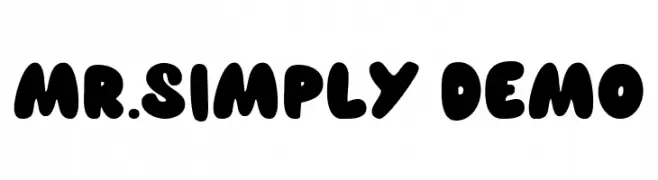
A playful, hand-drawn font with rounded, friendly characters.
An elegant, cursive font with flowing, ornate characters.
An elegant, cursive font with decorative flourishes and smooth curves.
A playful, bold font with rounded edges and a whimsical style.
A playful handwritten font with tall, narrow letters and a casual style.
An elegant script font with flowing, interconnected letters and decorative loops.
An elegant script font with intricate swirls and flowing lines, perfect for sophisticated designs.
An elegant script font with intricate swirls and a classic calligraphic style.
A modern, geometric sans-serif font with a clean and minimalist design.
A modern, geometric sans-serif font with rounded edges and consistent stroke width.
Playful and rounded sans-serif font.
Botanical display font with rose illustrations for each character.
A diverse collection of creatively styled arrows with decorative elements.
A playful, hand-drawn design featuring cute bunny illustrations.